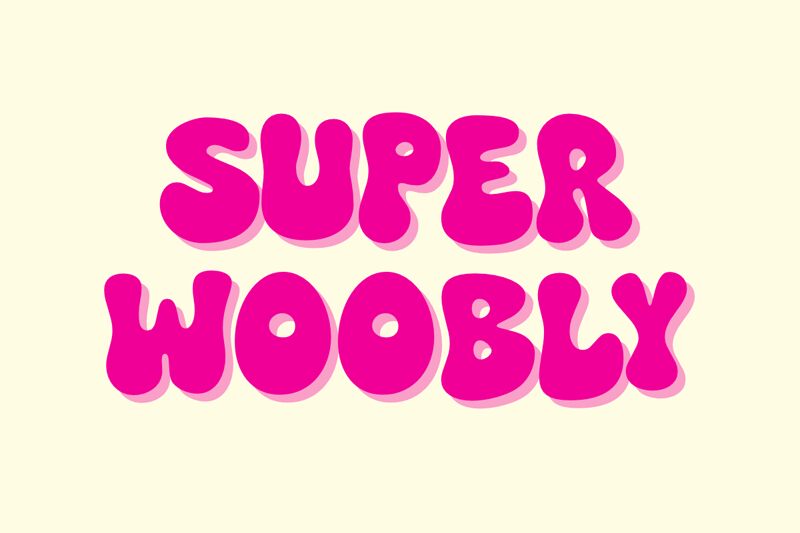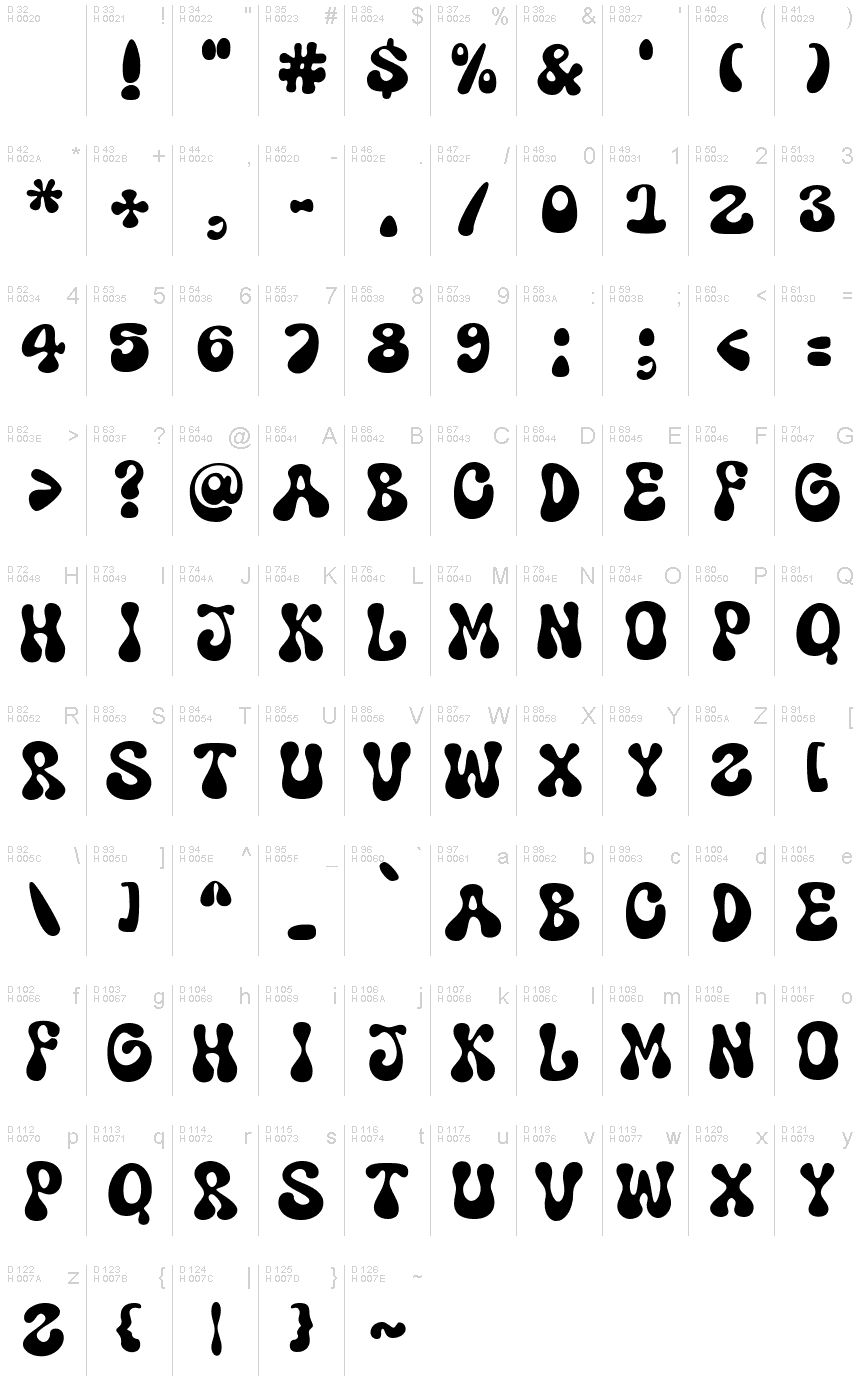
Super Woobly
Super Woobly is a groovy display font that packs a punch. Designed by fsuarez913, it's perfect for projects that need to stand out from the crowd. With its bold weight, it demands attention while its groovy style adds a playful touch. Super Woobly would be ideal for branding projects with a retro or vintage vibe, as well as posters and flyers that need to grab attention quickly. Its unique design will make any project pop, making it a great choice for those looking to add some personality to their typography.